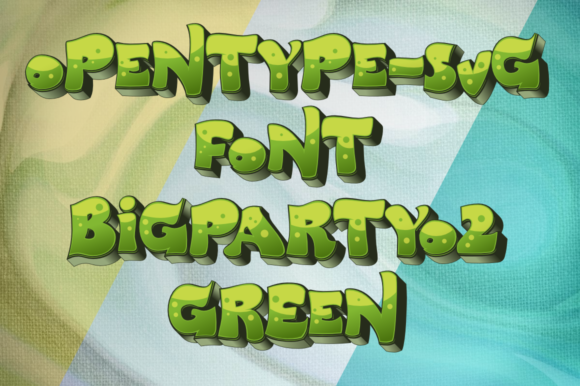
Step into the world of captivating designs with Big Party O2 Green, the color font that ignites your creative spirit. Immerse yourself in a spectrum of vibrant hues that bring life to your digital creations. This font is not just a tool; it's a gateway to expressing your individuality and making a statement that resonates.
With Big Party O2 Green, the ordinary becomes extraordinary. Transform your designs into eye-catching masterpieces that demand attention. Let your imagination run wild as you craft invitations that pop, social media posts that sizzle, and branding materials that leave an unforgettable impression.
Unleash the power of color to evoke emotions and create connections. Whether you're designing for a playful party, a whimsical wedding, or a bold marketing campaign, Big Party O2 Green is your secret weapon. Its vibrant shades ignite passion, joy, and excitement, leaving your audience captivated.
But Big Party O2 Green is more than just a pretty face. It's a font that's as versatile as it is beautiful. Its carefully crafted characters dance harmoniously together, creating a visual symphony that's both elegant and impactful. Use it for headlines that command attention, body copy that captivates, and logos that leave a lasting impression.
Don't settle for ordinary fonts that blend into the background. Embrace the brilliance of Big Party O2 Green and watch your designs come alive. It's the font that transforms the mundane into the magnificent, the ordinary into the extraordinary. Experience the magic of color and creativity today!